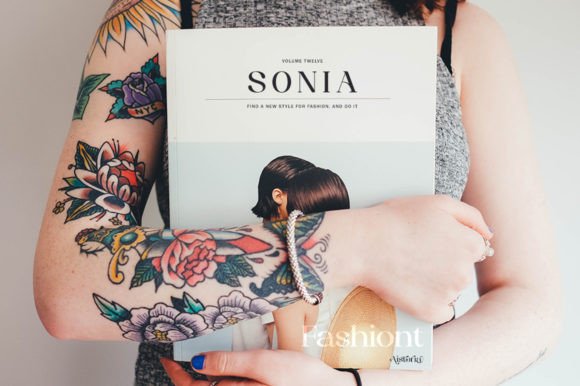
Aistoria Font
Aistoria is a typeface that is feminine, adaptable, and aesthetically contemporary and creates limitless variety for your creative needs. Its striking contrasts and subtle details, together with luxurious strokes and voluptuous curves, create a beautiful and powerful statement for any typographic composition, blending glamor with contemporary aesthetics.